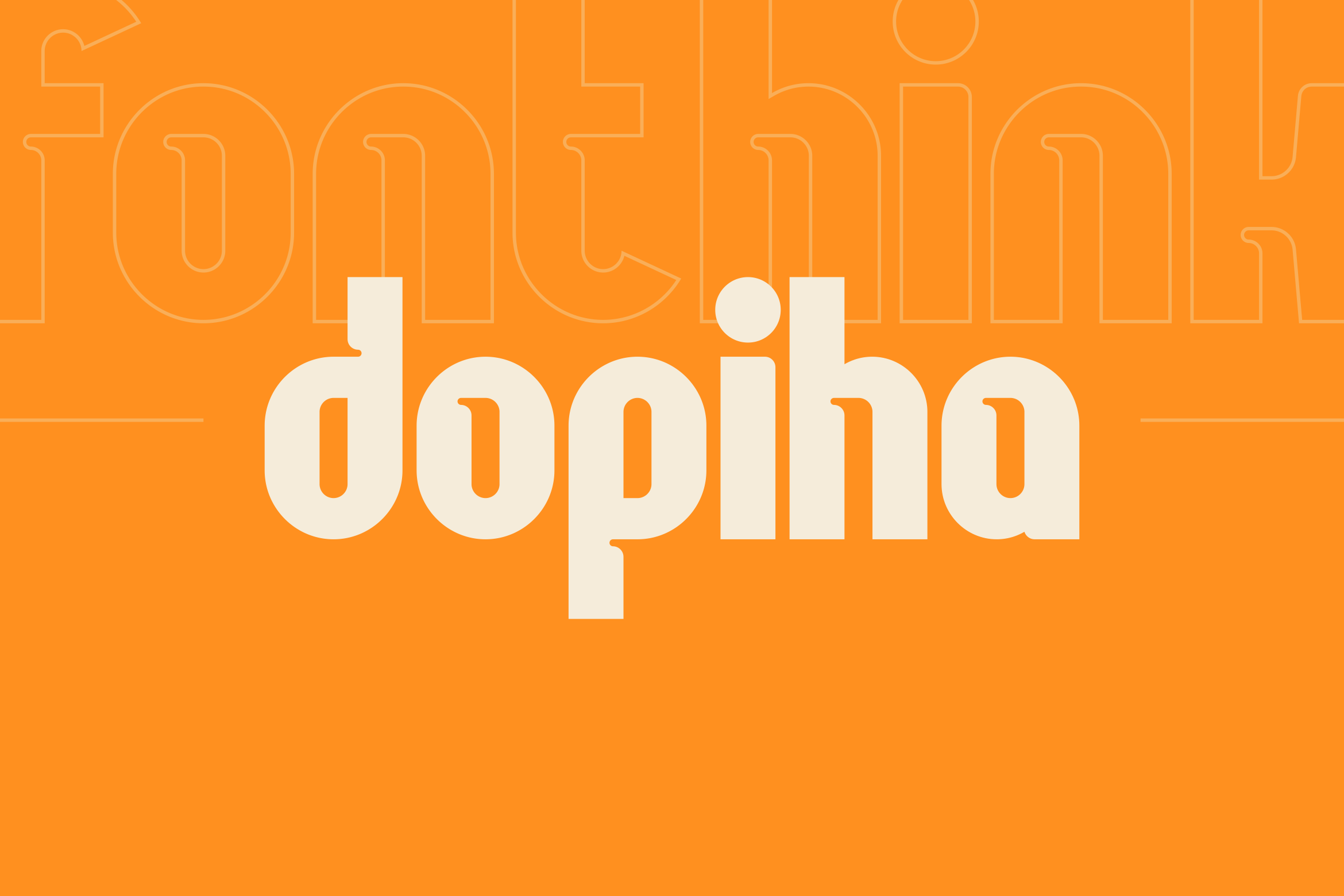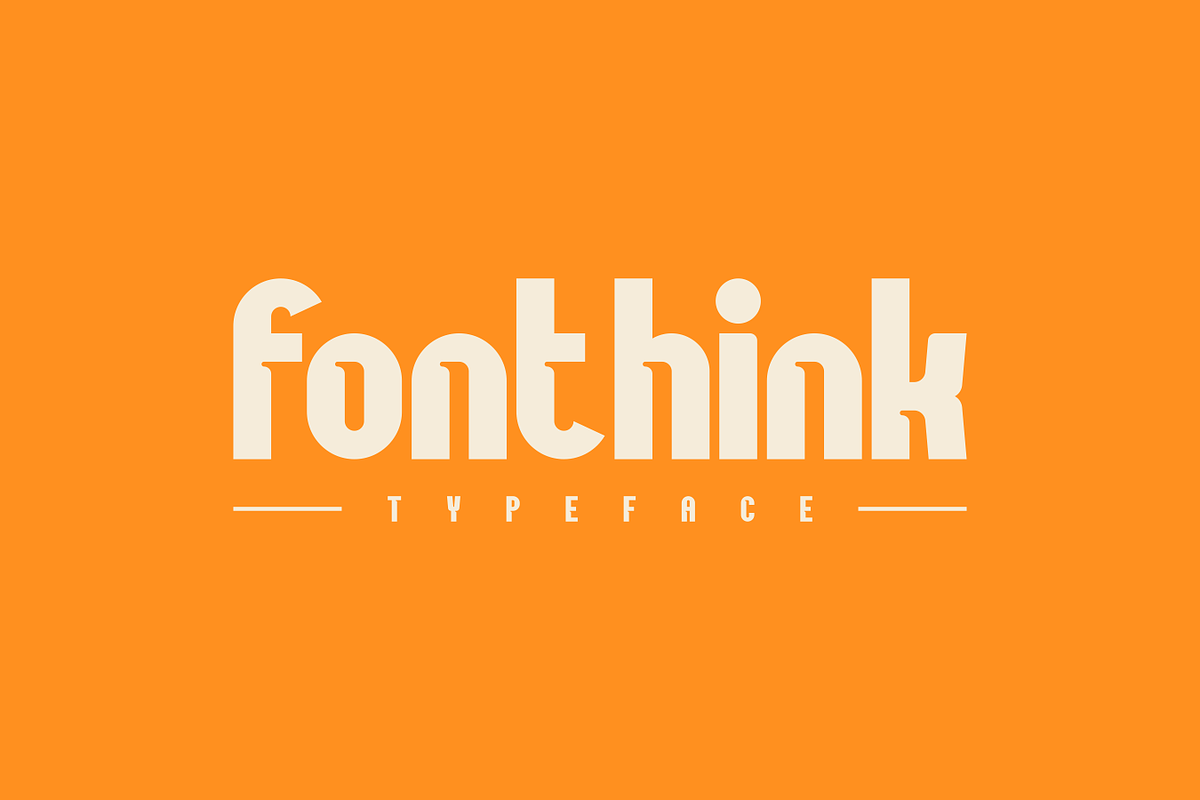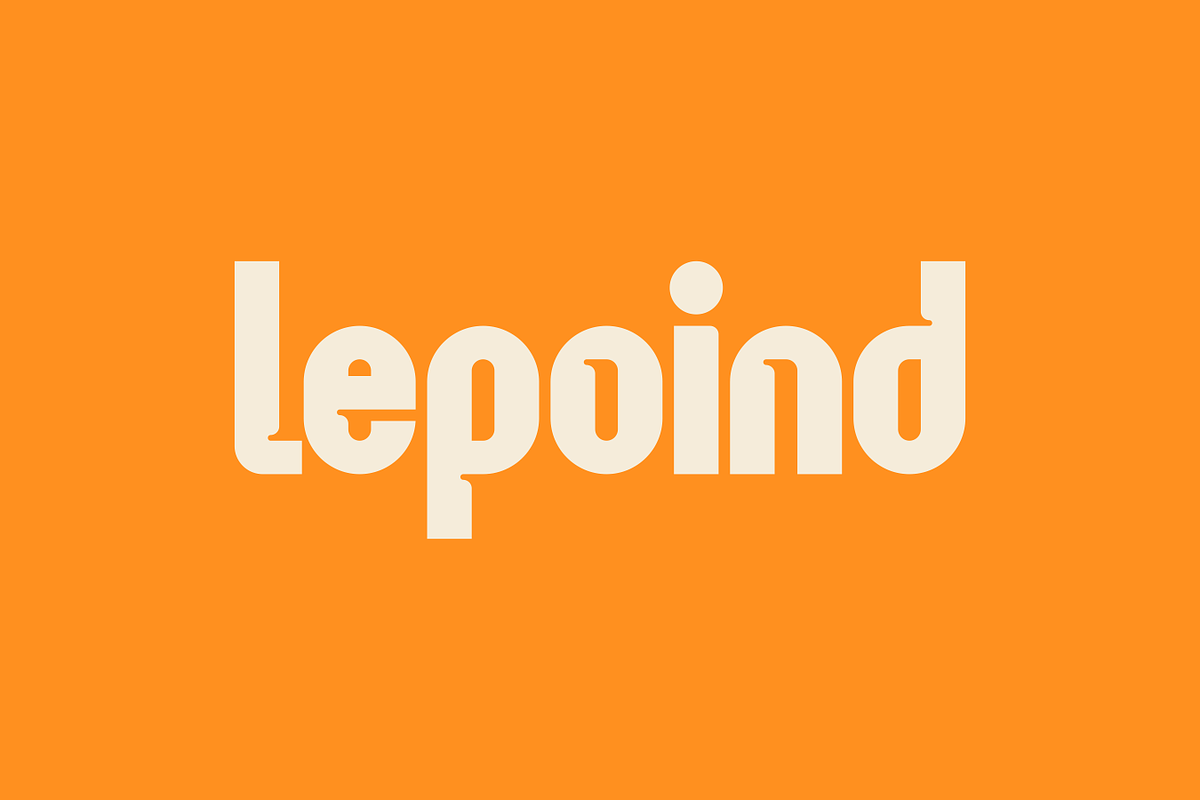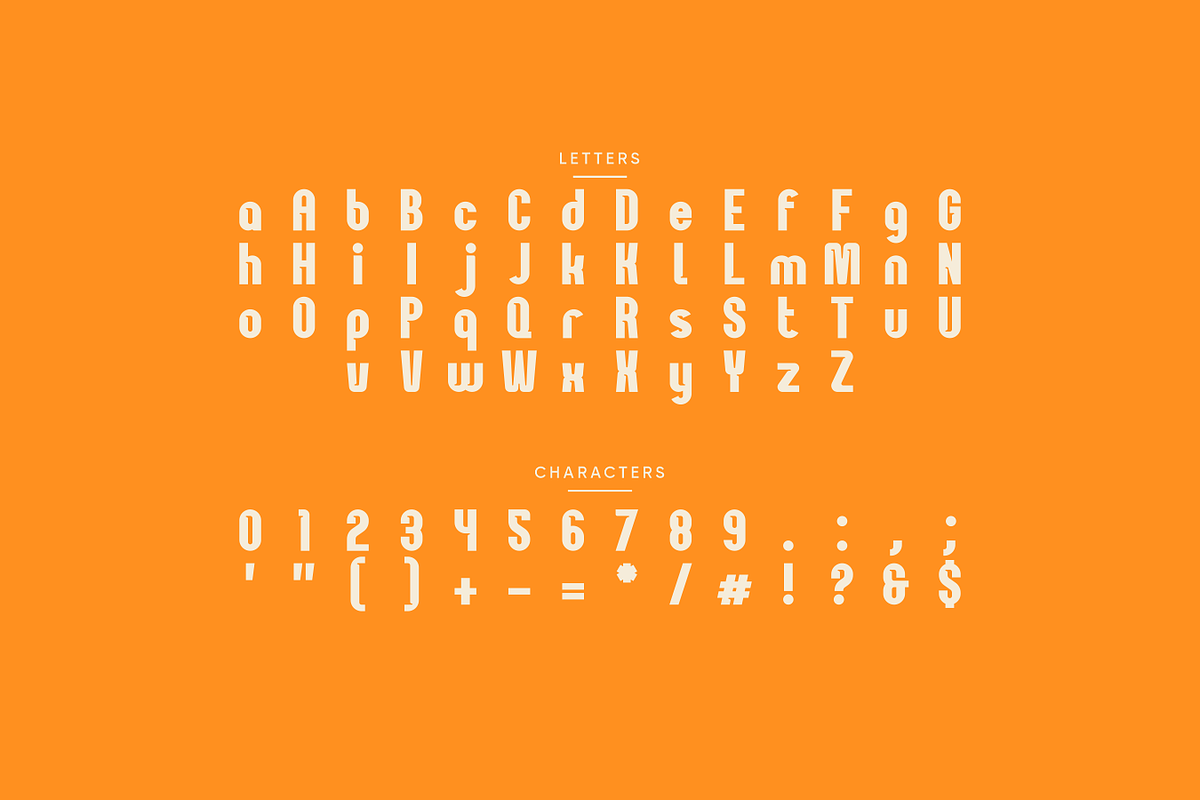
Dopiha - Modern Display Typeface
Elevate your designs and captivate your audience with the enchanting Dopiha Font, a typographic masterpiece that strikes the perfect balance between elegance and versatility. With its exquisite curves, meticulous detailing, and timeless appeal, this font is the ultimate choice for designers, creatives, and typographers seeking to make a lasting impression. Dopiha is a perfectly choice for any creative endeavor, chic, lifestyle design such as logos, advertisements, watermark on photography, stationery, branding project, display and magazine, invitation, corporate brand, product design, label, business project and many other project with elegant touch.
- Punctuation & Number